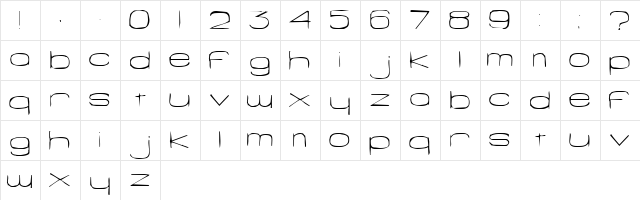
Snigset Regular Font Preview
Snigset Regular
Snigset Regular Font Details
Design Context for Snigset Typeface
Snigset takes a measured approach to typography — its balanced proportions and neutral character make it a reliable workhorse for both digital and print work.